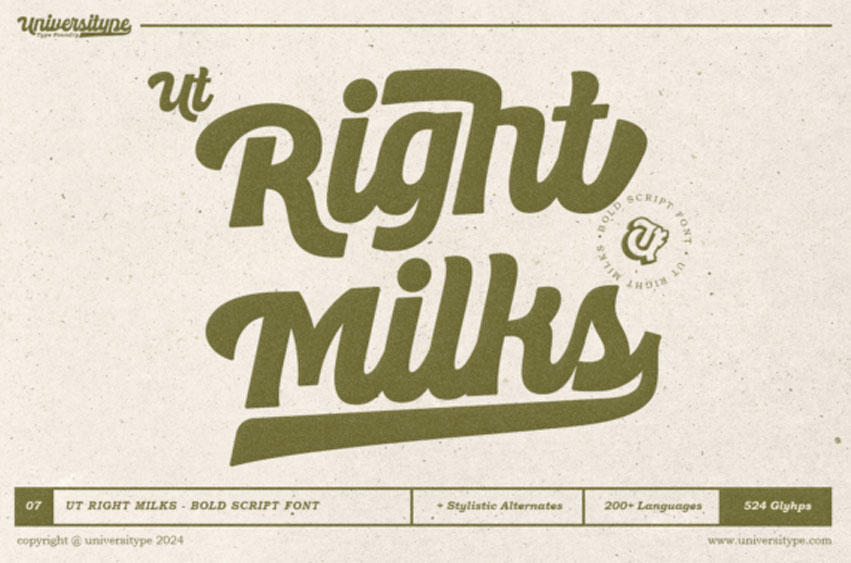
Ut Right Milks Font Immersing your design projects in the magnetic allure of the UT Right Milks script font. Blending arresting boldness with unrivaled versatility, this unique typeface sets a fresh standard where traditional bold scripts fall short. This custom solution effortlessly accommodates diverse design needs, efficiently dashing away the bounds of monotonous typography.
Achieving an equilibrium between stylishly robust and delicately flowing, UT Right Milks presents self-assured strokes and a smooth script. In an impressive repertoire of features, it flaunts 524 glyphs, serving an ensemble of stylistic variations-yielding you the ultimate control over your designs. Gain the liberty to choose from three stylistic sets for diverse creative expressions and present a uniquely styled narrative. The font also includes easy-to-incorporate ligatures, enhancing your design potential.
Positioned to impress, UT Right Milks doesn’t compromise on readability. It maintains clarity across different sizes, right from impactful headlines to more details in the smaller body text. This thoughtful blend of style and pragmatism extends over 200 languages, ensuring your design message resonates globally, bypassing language barriers.
Intended for branding mavens yearning to infuse a distinctive bold script into logos, this font also resonates with creative marketers and social media wizards. Embrace the influence of brush lettering and prominent sign painting traditions; the UT Right Milks brand nurtures a classic style with modern adaptability. Designs demanding a powerful yet approachable vibe will cherish its hand-drawn, rounded look, adding a touch of personality and warmth.
Ideal for branding initiatives—from logos to packaging and labels— the powerful script echoes the brand’s identity. Its bold presence makes it perfect for magazine headers, brochures, and advertising campaigns intended to make a statement. Utilize its inviting charm to grace website headers, social media posts, and promotional banners, and see your digital media radiate character. This versatile font even enlivens the merchandising sphere, especially apparel, accessories, and packages requiring a bold, playful spin.